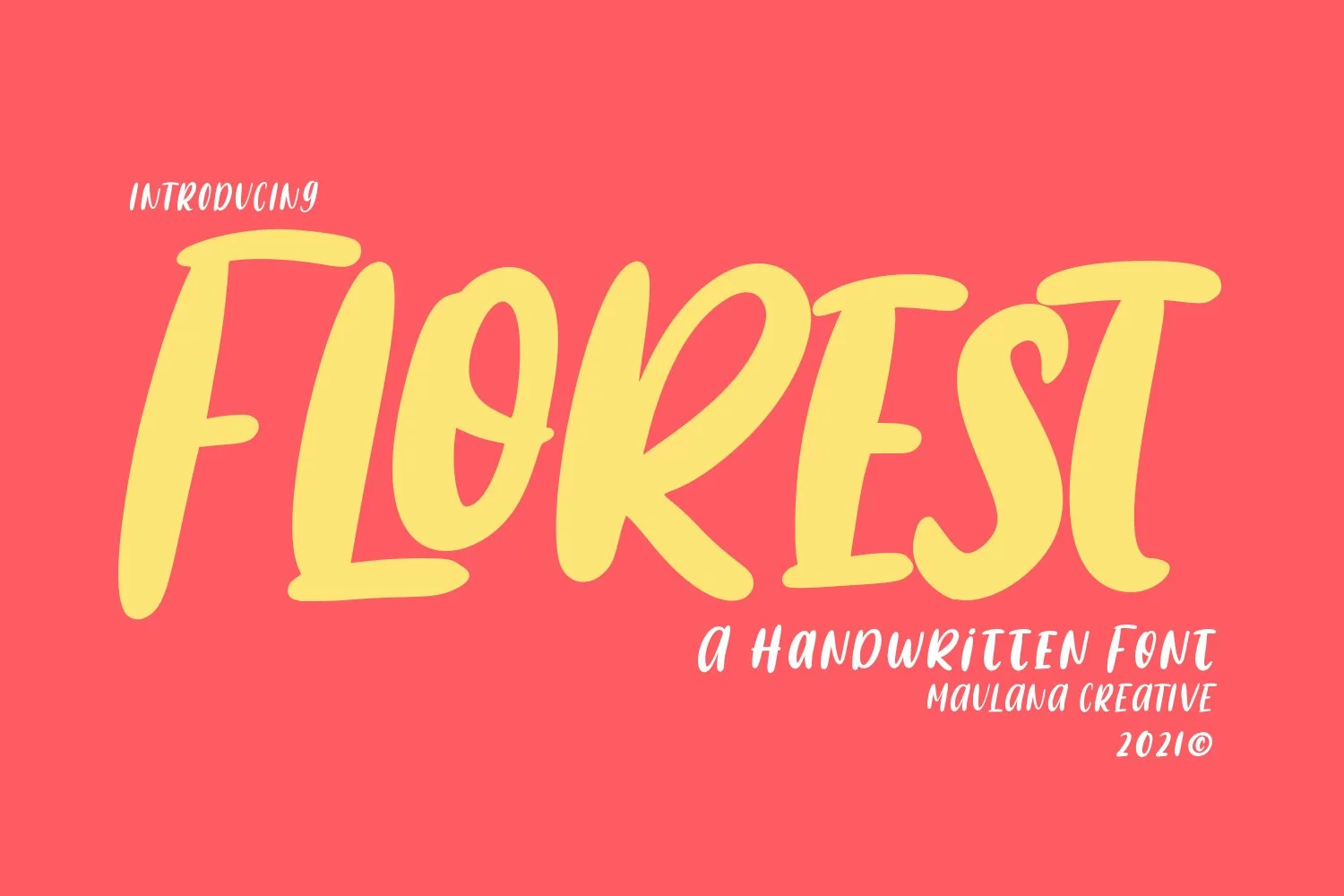
Florest is a Rough natural handwritten font. With bold stroke, slanted and fun character with a bit of ligatures. To give you an extra creative work. Florest font support multilingual more than 100+ language. This font is good for logo design, Social media, Movie Titles, Books Titles, a short text even a long text letter and good for your secondary text font with sans or serif. Make a stunning work with Florest font.